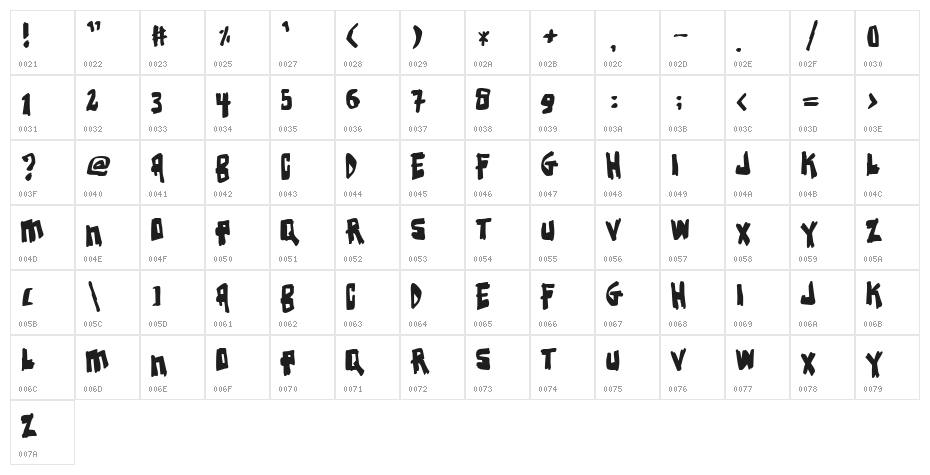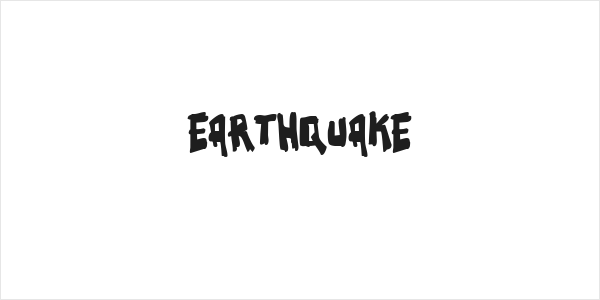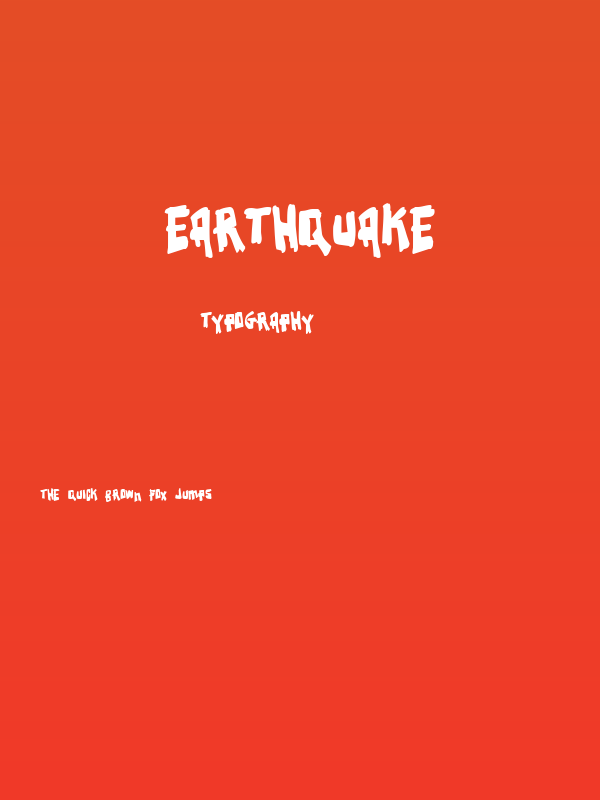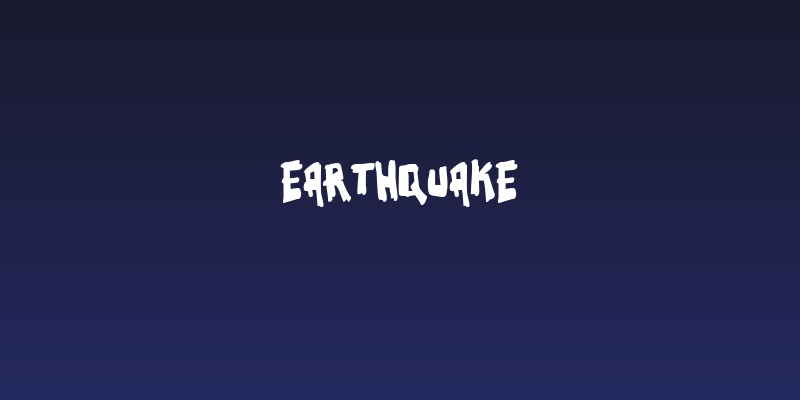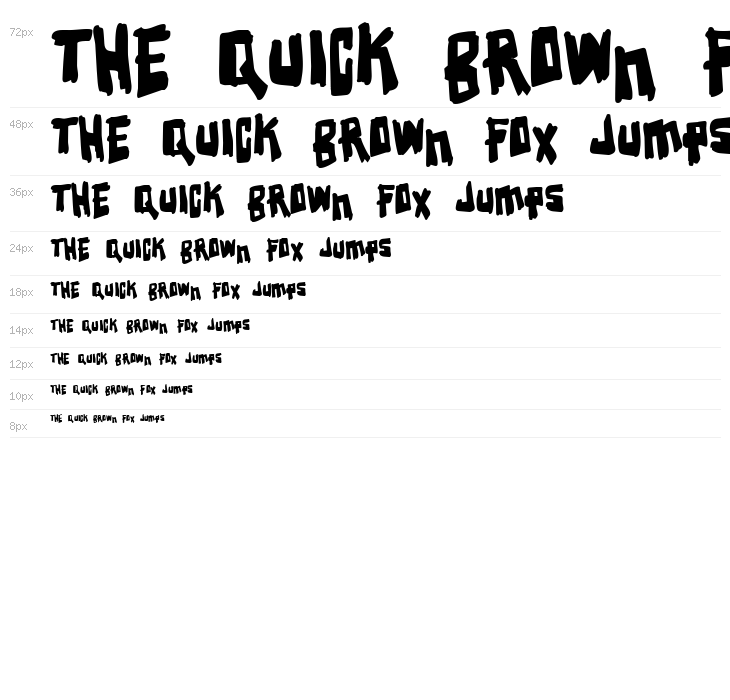
Earthquake Font
Earthquake Description
This font features a bold and dynamic style with a jagged, uneven appearance that mimics the effect of an earthquake. The characters are thick and irregular, giving a sense of movement and energy. The uppercase and lowercase letters maintain a consistent boldness, while the numbers and special characters follow the same rugged design. The font's unique style makes it stand out, with each character appearing as if it has been shaken or distorted, adding a dramatic flair to any text.
| Use Case | Headlines, Posters, Graphic Design |
| Proposed Projects | Ideal for posters, headlines, and graphic designs that require a dramatic and energetic look. |